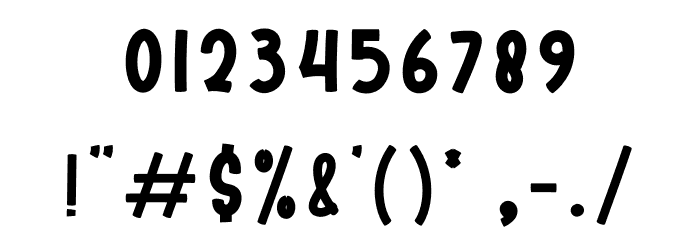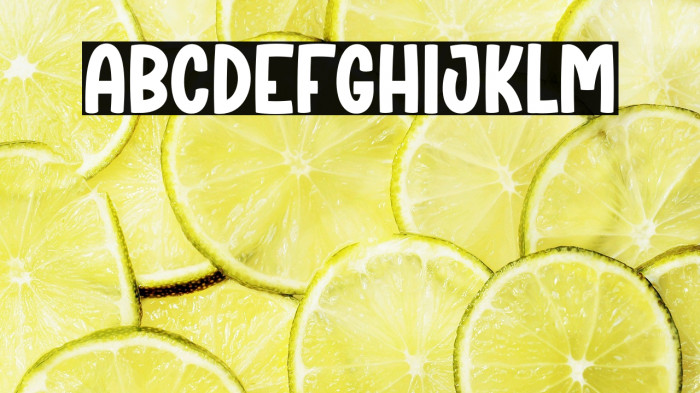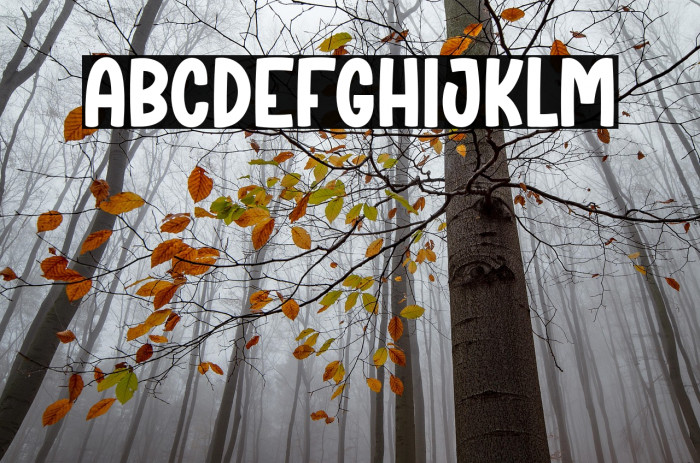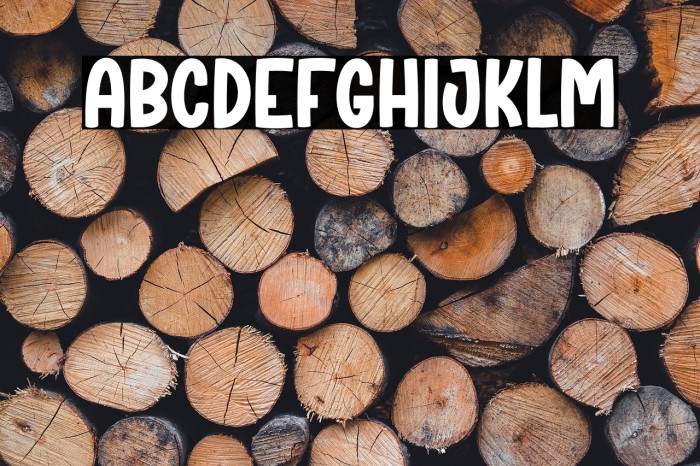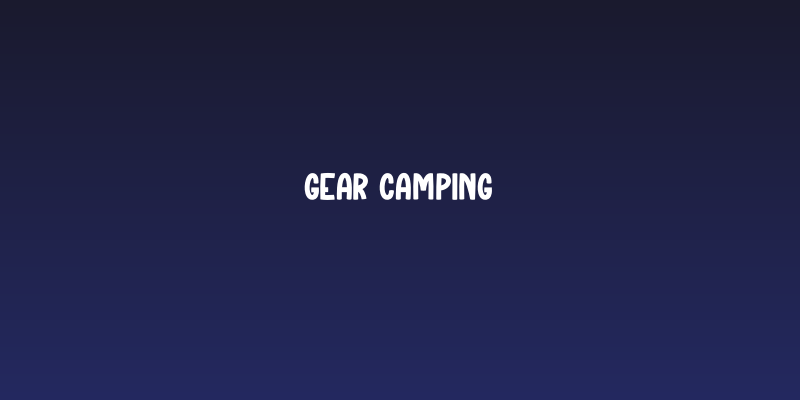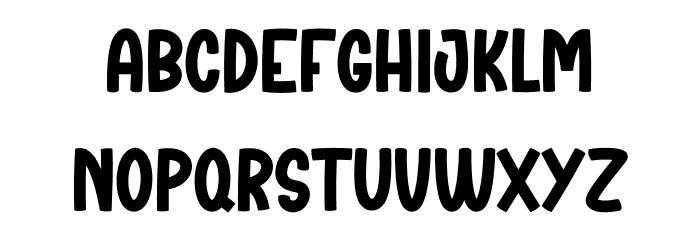
Gear Camping Font
Gear Camping Description
This font features a bold and playful style with rounded edges and a slightly irregular shape, giving it a friendly and approachable appearance. The characters are evenly spaced, with a consistent thickness that maintains readability while adding a touch of whimsy. The uppercase and lowercase letters are well-balanced, and the numerals are clear and distinct. The special characters are designed to match the overall playful aesthetic, making this font suitable for a variety of creative projects.
Fonts by Scratchones
Overall StylePlayful
Proposed ProjectsIdeal for children's books, playful branding, posters, and casual invitations.